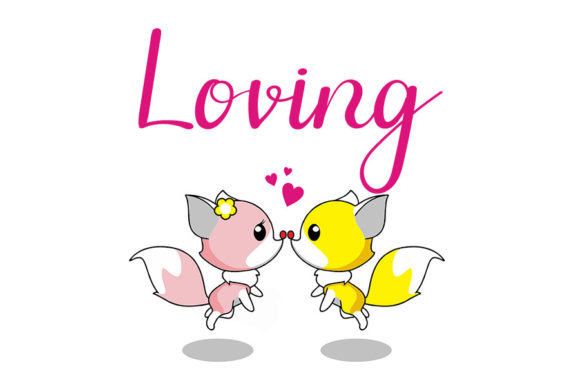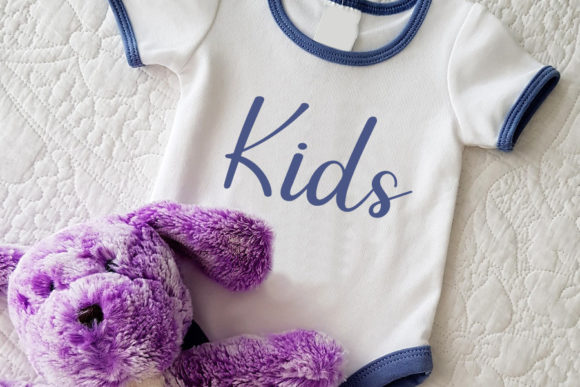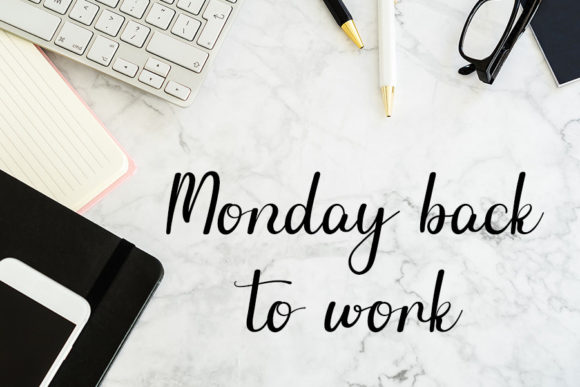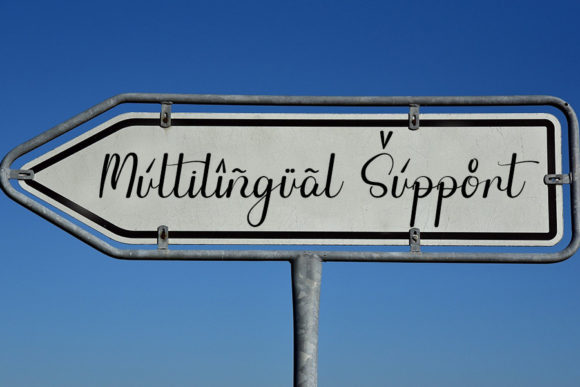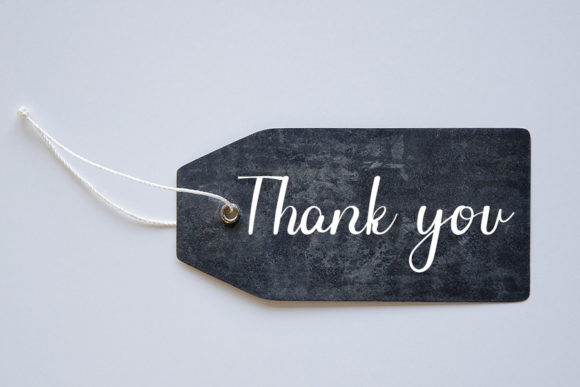
Introducing Feeling Font: Elevate Your Designs with Timeless Elegance
In the world of typography, a font can make or break the aesthetic of a project. For designers and crafters seeking to add a touch of sophistication and elegance, the Feeling Font is an exceptional choice. This stylish handwritten font boasts a contemporary atmosphere and impeccable form, drawing inspiration from timeless classic calligraphy.
The Inspiration Behind Feeling Font
The Feeling Font is a masterful blend of traditional calligraphy and modern design sensibilities. Its creators aimed to craft a font that not only pays homage to the classics but also meets the demands of contemporary design. The result is a typeface that exudes balance, elegance, and versatility.
Key Features of Feeling Font
- Balanced and Varied: The Feeling Font was designed to bring harmony and consistency to your projects. Its balanced and varied characters ensure that your text remains legible and visually appealing, even in longer passages.
- Contemporary Atmosphere: While rooted in classic calligraphy, the Feeling Font has a distinctly modern feel. Its clean lines, subtle curves, and carefully crafted letterforms make it perfect for designs that require a touch of sophistication.
- Impeccable Form: Every letter in the Feeling Font has been meticulously designed to showcase impeccable form. The attention to detail is evident in the font’s flowing strokes, precise connections, and elegant terminals.
Why Choose Feeling Font?
For designers and crafters, selecting the right font can be a daunting task. Here are a few reasons why the Feeling Font stands out:
- Enhance Your Projects: Whether you’re working on a branding project, packaging design, or digital content, the Feeling Font can elevate the beauty of your work. Its classic yet modern aesthetic ensures that your designs remain relevant and engaging.
- Versatility: The Feeling Font is incredibly versatile, making it suitable for a wide range of applications. From headings and titles to body text, this font adapts seamlessly to different design requirements.
- Easy to Read: Despite its elegant and cursive nature, the Feeling Font remains highly legible. This makes it an excellent choice for designs that require a balance of style and readability.
Using Feeling Font in Your Designs
Integrating the Feeling Font into your workflow is straightforward. Here are a few tips to get you started:
- Pairing: Experiment with pairing the Feeling Font with complementary typefaces to create visual interest. Its classic nature makes it an excellent match for sans-serif fonts, while its modern twist allows it to work well with other script fonts.
- Color Schemes: The Feeling Font works well with a variety of color schemes. For a timeless look, pair it with neutral tones like black, white, and gray. For a more vibrant approach, consider contrasting colors that highlight the font’s elegant features.
- Adjusting Font Sizes: To maximize the impact of the Feeling Font, consider using different font sizes to create hierarchy and emphasis. This can help guide the viewer’s attention and enhance the overall design.
The Feeling Font is a remarkable addition to any designer’s toolkit. Its unique blend of classic calligraphy and modern design makes it an excellent choice for projects that demand elegance, sophistication, and a touch of timelessness. Whether you’re working on a professional project or a personal craft, this font is sure to enhance the beauty and impact of your work.
With its impeccable form, balanced and varied characters, and contemporary atmosphere, the Feeling Font is poised to become a favorite among designers and crafters. Experience the difference it can make in your designs and discover a new level of typographic excellence.